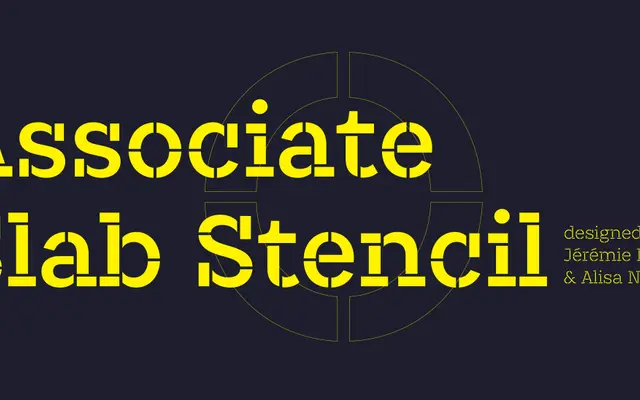
Associate Slab Stencil
A stencil cut of the Associate Slab family, running five weights from Extralight to Bold each with matching italics.
Part of the broader Associate type system alongside Associate Sans, Associate Sans Stencil, Associate Mono and Associate Slab, this stencil variant applies interrupted counters to a structured slab serif skeleton. Ten styles span five weights from Extralight to Bold with corresponding italics, making it usable across a range of display and branding contexts. The stencil treatment suits industrial, military-adjacent or modular design work where a harder edge is needed.
A stencil variant of a slab serif family, combining the structured serifs of a slab with the cut-through counters characteristic of stencil typefaces. Part of a wider Associate family that includes sans, mono and slab variants.